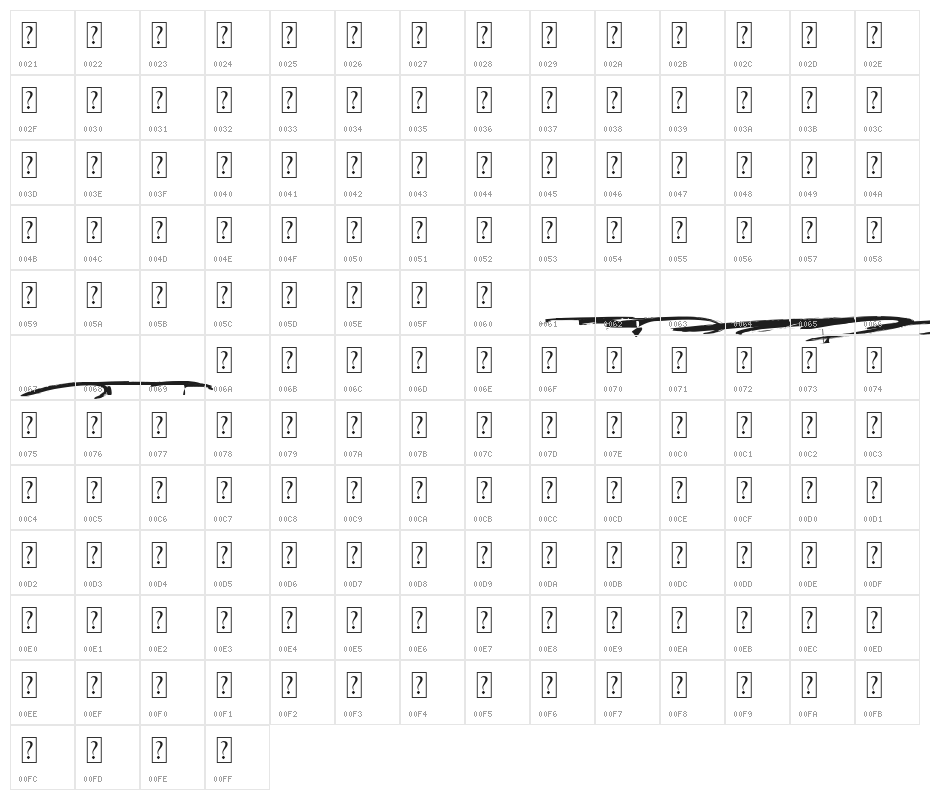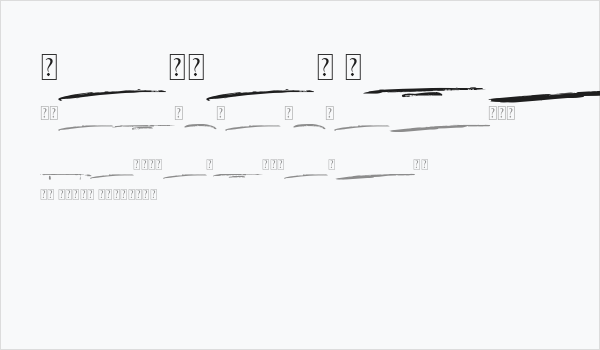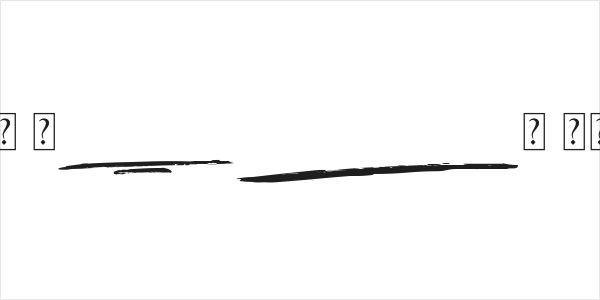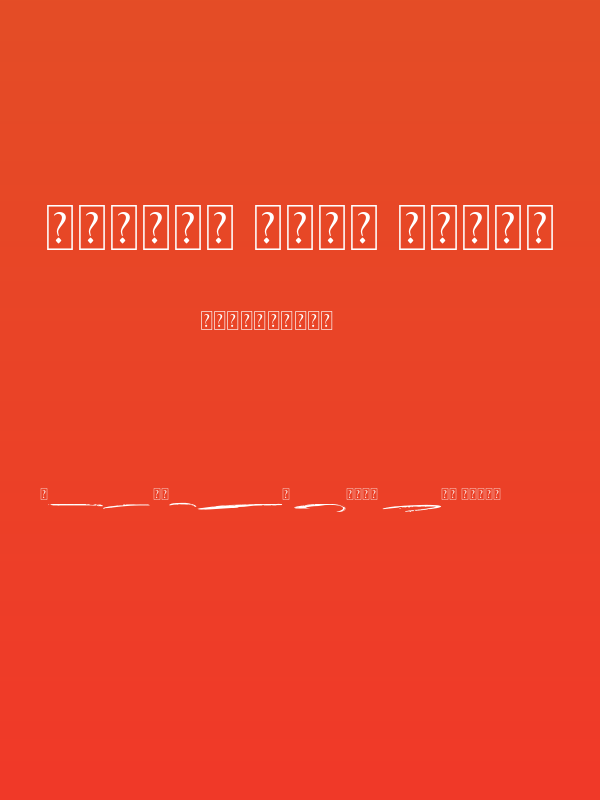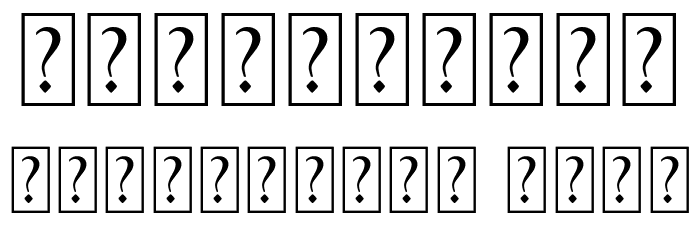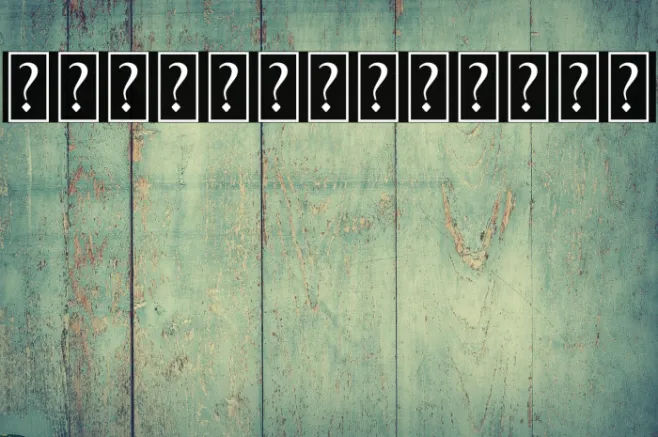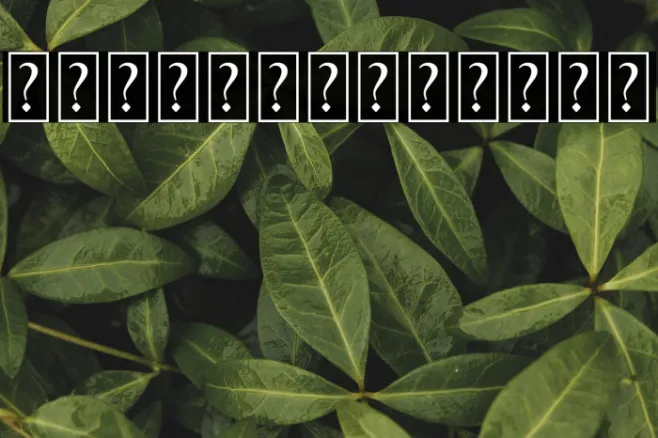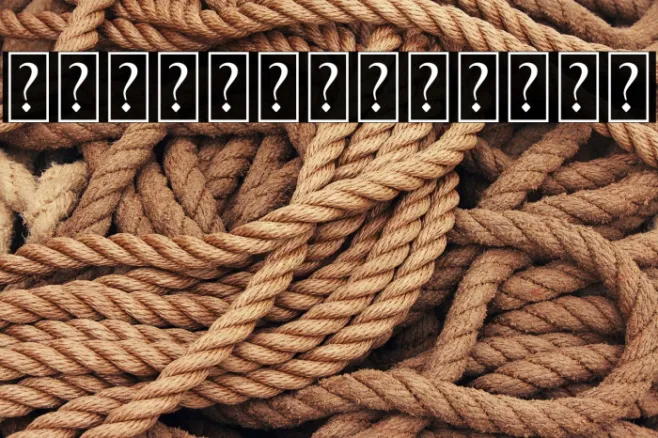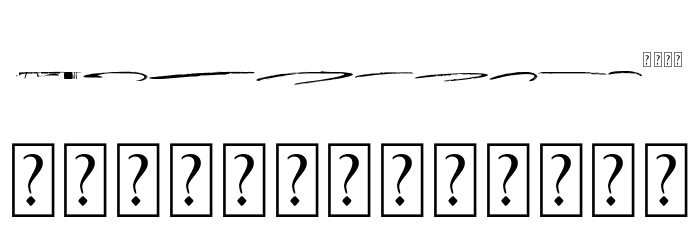
Better Jack Swash Font
Better Jack Swash Description
This font features a dynamic and flowing script style, characterized by elegant swashes and a handwritten appearance. The letters are crafted with smooth, sweeping curves that give a sense of motion and fluidity. The uppercase letters are particularly ornate, with extended strokes that add a decorative flair. The lowercase letters maintain a consistent style, complementing the uppercase with their own subtle embellishments. The numerals and special characters are designed to match the overall aesthetic, ensuring a cohesive look across all text. This font is ideal for projects that require a personal touch or a sense of elegance.